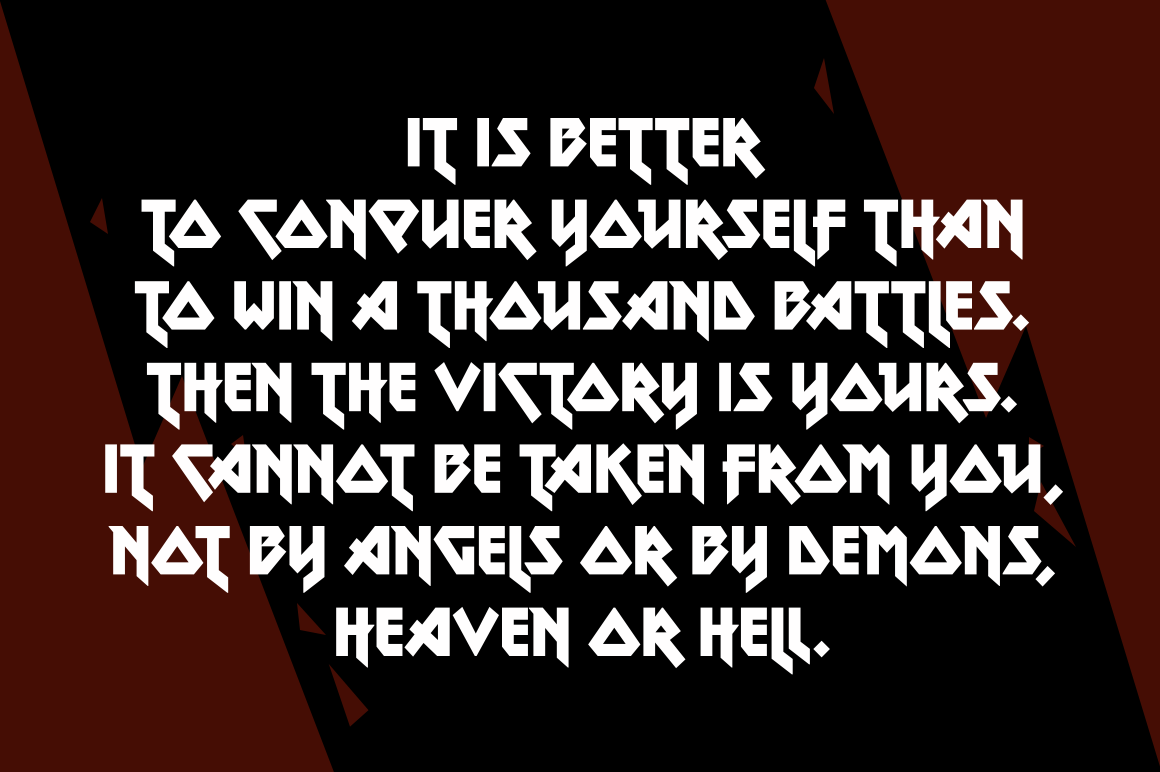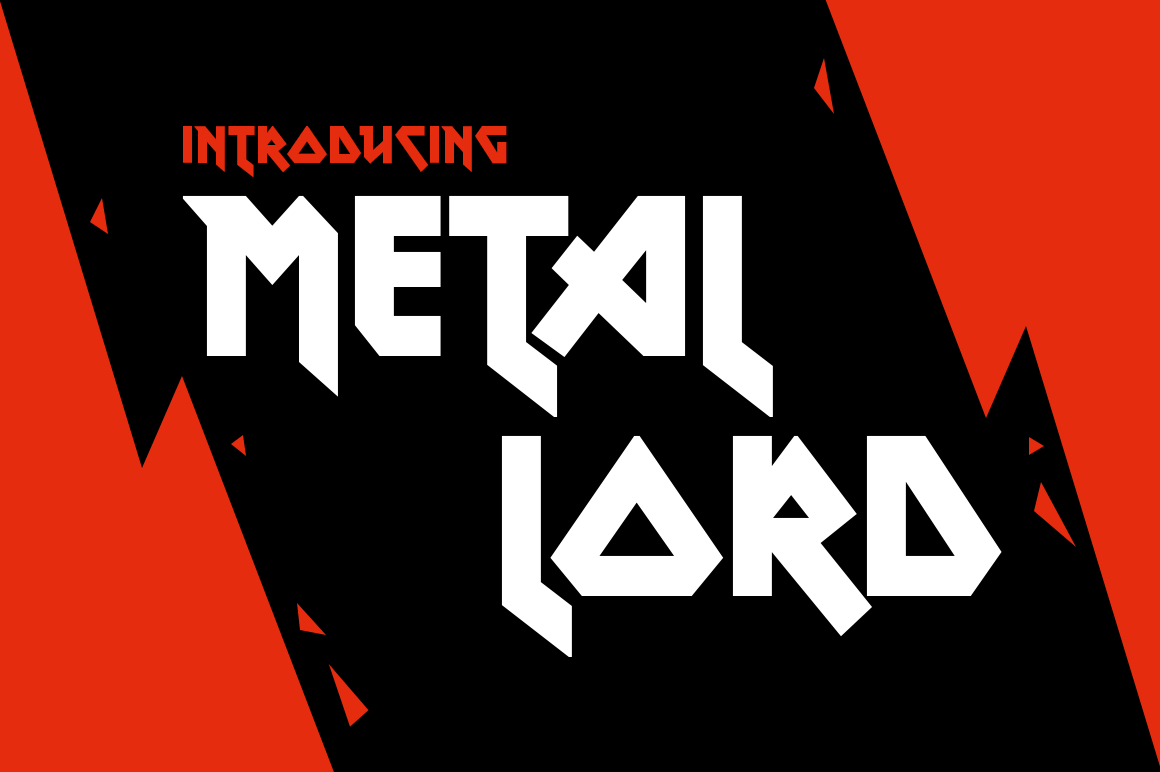
Metal Lord is the quintessential rock’n’roll font, inspired by all things heavy metal! This font is highly engaging as a display, and can give your designs a truly branded appeal.